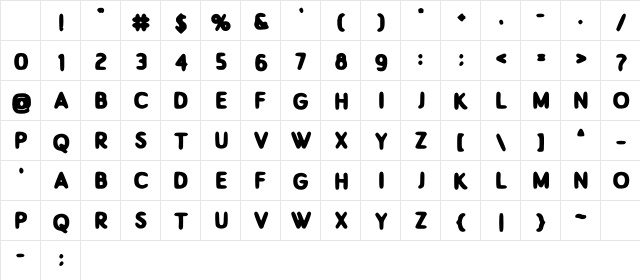
Complete Wolfer Regular glyph index. Displaying only characters natively supported by Wolfer Regular font.
Wolfer is a composed and adaptable typeface that performs quietly and consistently across a wide range of design contexts.